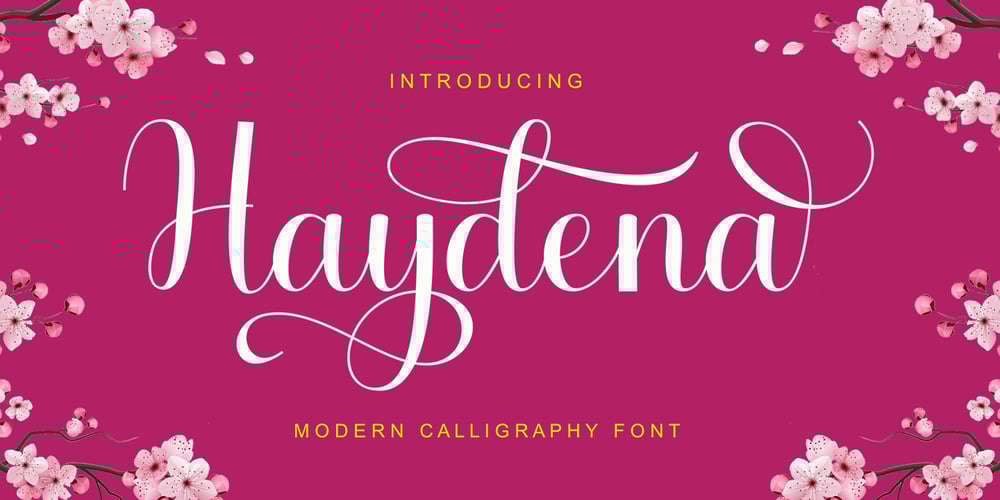
Haydena
Haydena font
Haydena Font Family was designed by khaidir and published by Gatype. Haydena contains 1 styles and family package options. Haydena Script is a calligraphic manuscript font, modern, dynamic and pretty with swashes. It can be used for many purposes. such as titles, signatures, logos, wedding invitations, letterhead, signages, labels, newsletters, posters, badges, etc.To activate OpenType Stylistic alternative, you need a program that supports OpenType features such as Adobe Illustrator CS, Adobe Indesign and CorelDraw X6-X7, Microsoft Word 2010 or later.How to access all of the alternate characters, using the Windows Character Map to Photoshop:https://www.youtube.com/watch?v=Go9vacoYmBwHow to access all of the alternate character using Adobe Illustrator:http://youtu.be/iptSFA7feQ0nnHaydena Script is PUA encoded with Unicode, which allows full access to all the extra characters without having special design software. Mac users can use Font Book, and Windows users can use the Character Map to view and copy one additional character to paste into your favorite text applications.Thank you very much for looking and please tell me if you have questions.